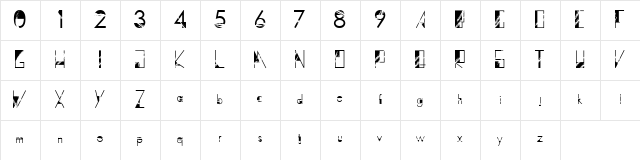
Dystopia Regular Free Font
Dystopia Regular
Dystopia Family
Dystopia is a composed and adaptable typeface that performs quietly and consistently across a wide range of design contexts.